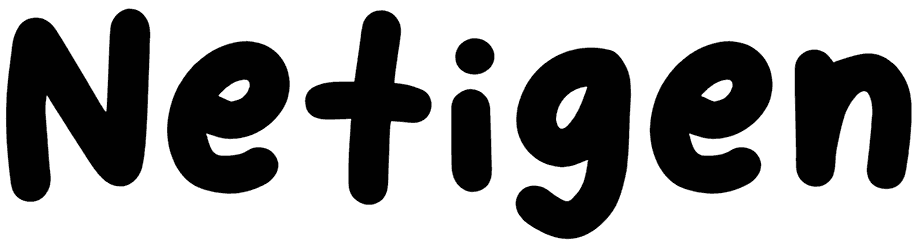
Netigen Font
Netigen is an adorable handwritten font that looks like it was made for a child. The style is casual and hand-drawn, making it ideal for making designs that children will enjoy.